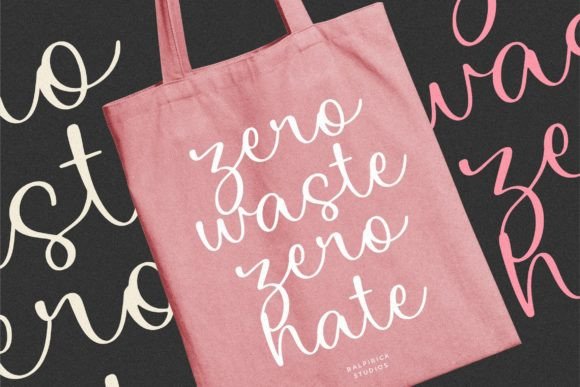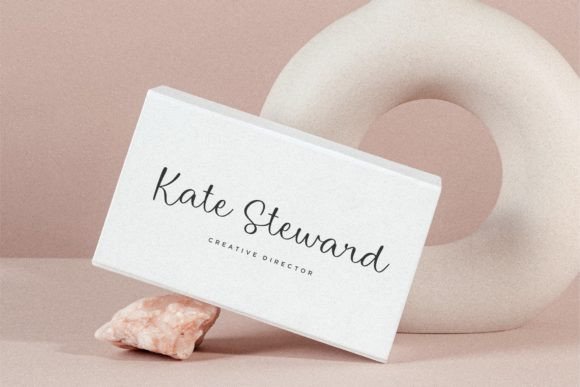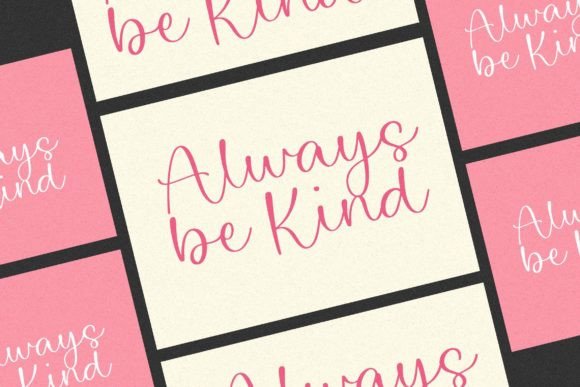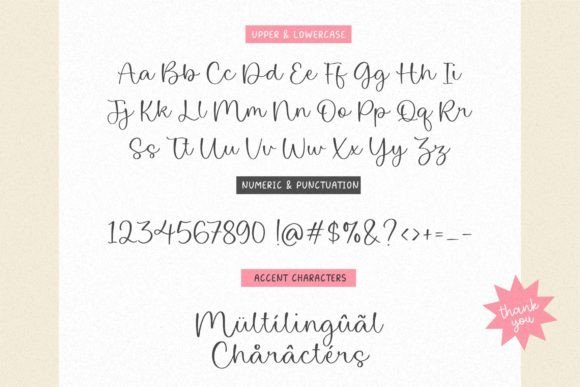
Unleash Your Creativity with the Perfect Font
Remember that moment when you finally found the perfect brush to capture the perfect stroke in your artwork? It’s that feeling of pure creativity and inspiration that drives us to keep pushing our boundaries. For designers, finding the right font can be just as magical. That’s where the Creativa Font comes in – a modern and stylish handwritten font that’s sure to spark your imagination.
Whether you’re working on a digital design project, creating handmade crafts, or making personalized greeting cards, the Creativa Font is the perfect addition to your design toolkit. Its versatility and unique charm make it an invaluable resource for designers who crave that extra special something to elevate their work. With the Creativa Font, you’ll be able to bring your creative vision to life like never before.
- Character Set: The font features a comprehensive character set, including Latin, Cyrillic, and Greek alphabets, as well as a range of punctuation and symbol characters.
- Unique Characteristics: The Creativa Font boasts a unique, hand-drawn design aesthetic, with subtle flair and texture that sets it apart from more traditional sans-serif fonts.
- Font Style Variations: The font family includes multiple weight and style variations, including Light, Regular, Bold, and Italic, allowing for a high degree of flexibility and customization.
Creativa Font Review
As a designer, I was excited to try out the Creativa Font, and here’s my honest review.
The Creativa Font has a lot of potential, and here are some of its strengths:
- Unique and elegant design that can add a touch of sophistication to any project.
- Highly legible, making it perfect for body text and paragraphs.
- Works well in both digital and print formats.
- Available in a range of weights, from light to bold, giving designers flexibility.
While the Creativa Font has its strengths, it’s not without its limitations:
- May not be the best choice for headings or titles, as it can be too subtle.
- Some characters may not be as well-designed as others, affecting overall consistency.
- Lacks a bold, expressive feel that some designers may be looking for.
The Creativa Font is a solid choice for designers who want a elegant, legible font for body text. However, it may not be the best fit for projects that require bold, expressive typography.
Getting the Most Out of Creativa Font
To get the most out of Creativa Font, use it in bold or italic styles to add emphasis to your text. You can also pair it with other fonts to create a unique and visually appealing design.
Creativa Font is perfect for:
- Graphic design projects
- Presentations and reports
- Social media posts and ads
- Business cards and letterheads
Alternatives to Creativa Font
Great Vibes is a beautiful, elegant script font that is perfect for creating a luxurious and high-end feel. It’s ideal for use in branding, invitations, and other materials where you want to convey sophistication and style.
Compared to Creativa Font, Great Vibes has a more refined and polished look, with a more consistent flow and connection between letters. It’s a great choice if you want a font that’s both elegant and easy to read.
Carolyna Pro is a modern, elegant script font that’s perfect for creating a sophisticated and luxurious feel. It’s ideal for use in branding, advertising, and other materials where you want to convey high-end style and sophistication.